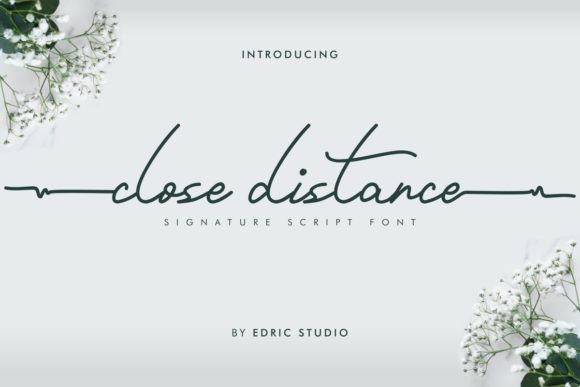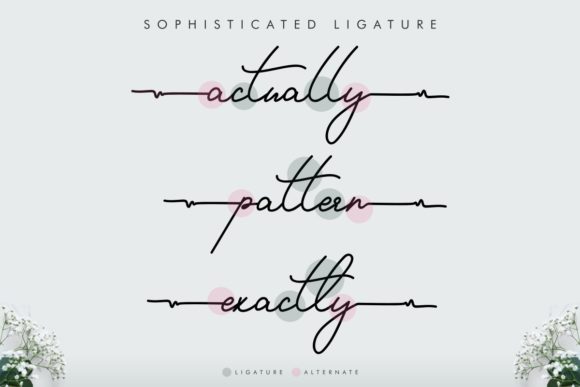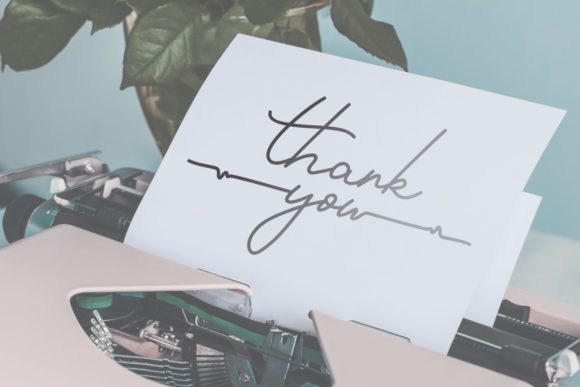
About Close Distance Font
Close Distance is an elegant and flowing handwritten font. Add this font to your creative ideas and notice how it will make them stand out!